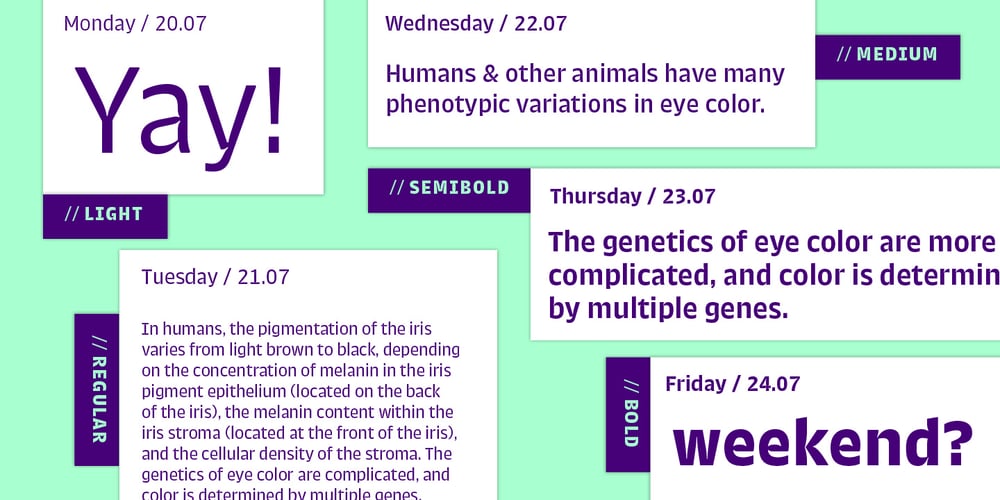
Trench Sans
Trench Sans font
Trench Sans Font Family was designed by Shiva Nallaperumal and published by Indian Type Foundry. Trench Sans contains 5 styles and family package options. Trench Sans is family of fonts intended for use in small-sized texts – about 5–10pt. In spirit, Trench Sans is an agate type. An agate is a a unit of typographical measure, 5.5 points high. Like many other agate types, Trench Sans features ink-traps as part of its design. These are little wells in corners where ink would otherwise clog-up and make the printing appear too dark. Other functional aspects for high performance in small sizes, which have been added to Trench Sans, include compact letter shapes, open counters, appropriate spacing, and short descenders to better accommodate for tighter text-setting. There are a number of alternates included in each font: the standard form of the capital “I” in all fonts has serifs; the “a” is two-storied and the “g” is single-storied. Over stylistic sets, users can access a capital “I” without serifs, a double-storied “g”, and alternate forms of “M”, “N”, “W”, and “w”. Trench Sans is part of ITF’s Trench superfamily, which also includes Trench Rounded and Trench Slab.